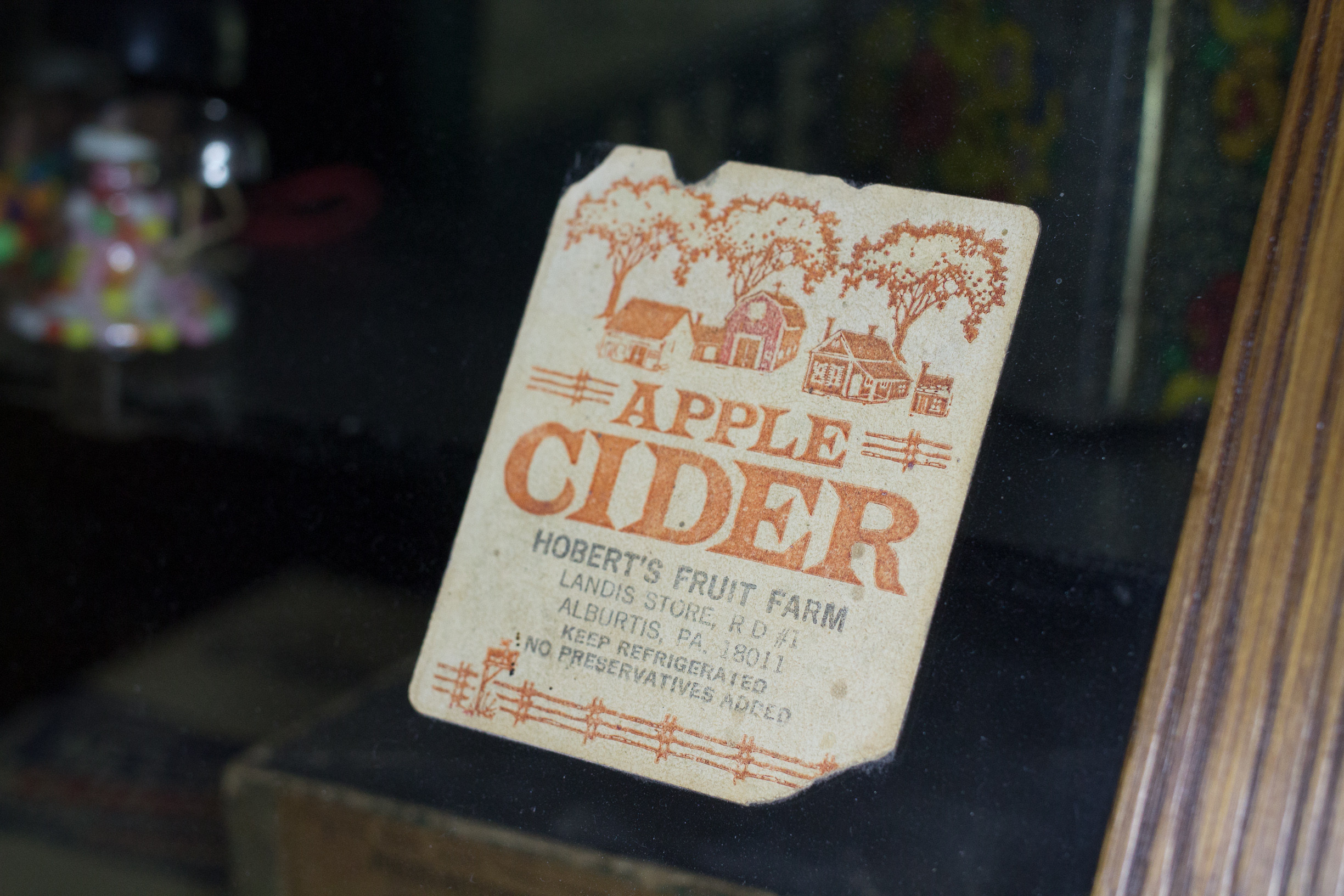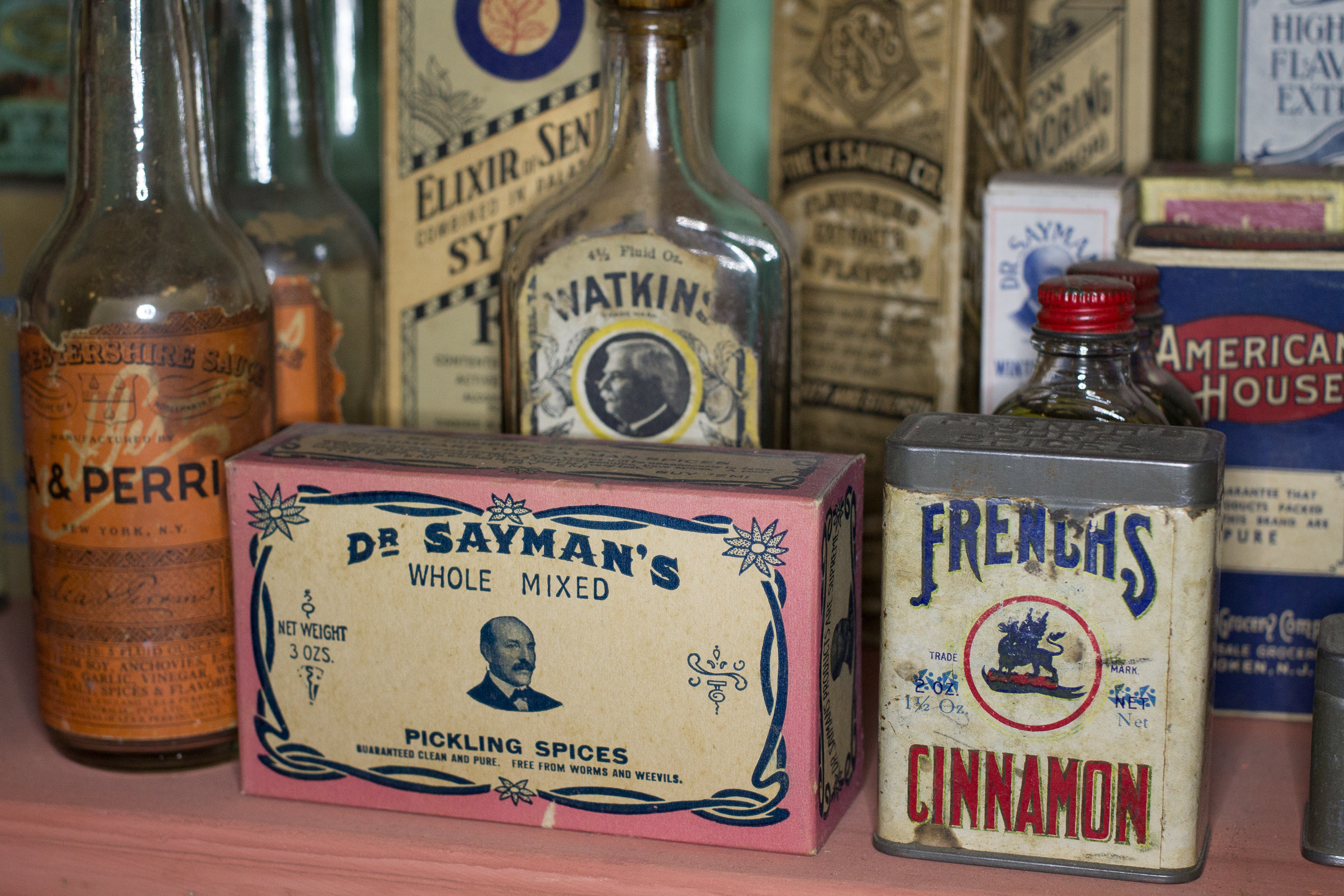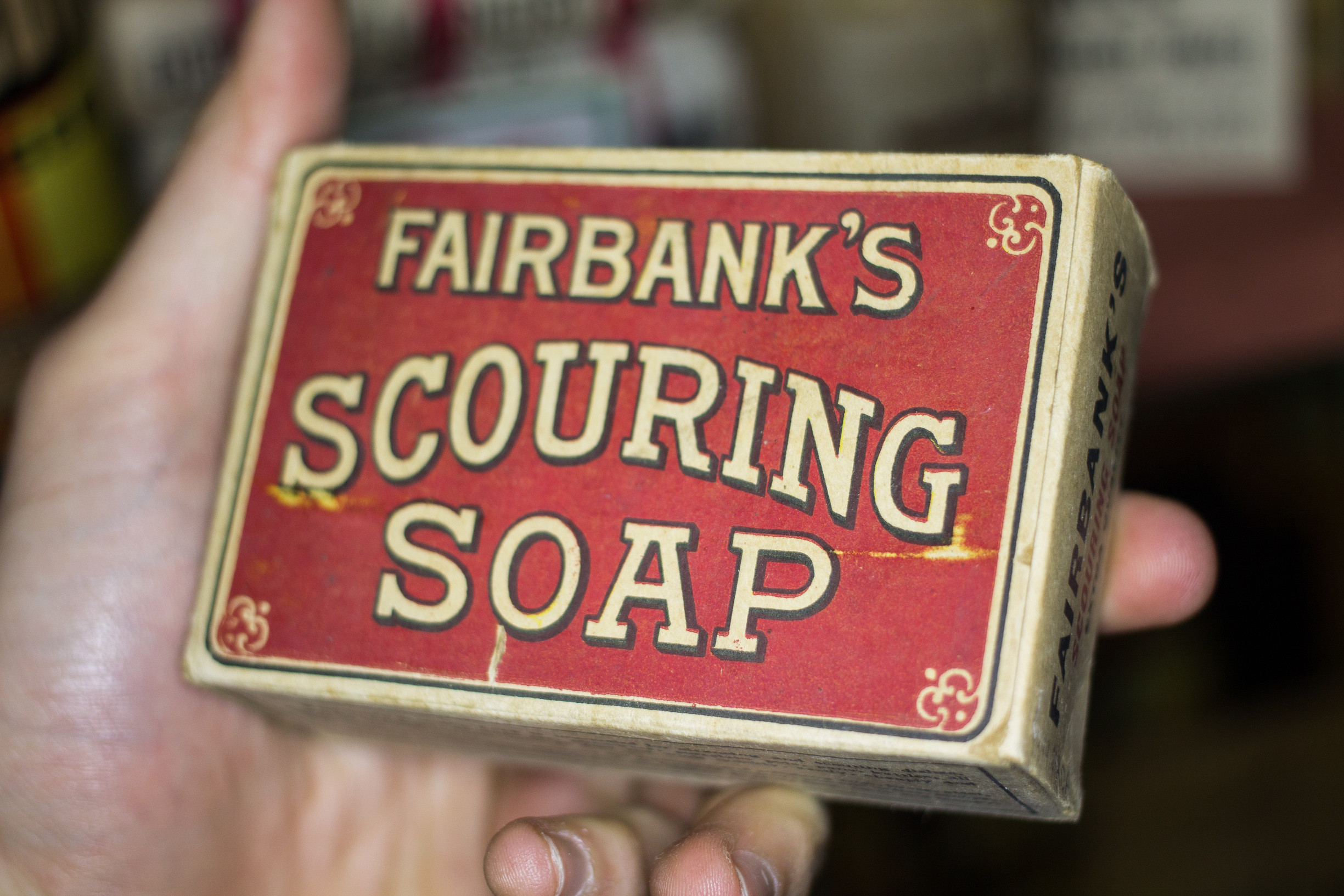
Check some retro findings that prove timeless typographic excellence
These findings will probably seem interesting to film-directors ala Wes Anderson style, designers for some back-to-roots typographic treatmets, mothers will maybe get sensitive and collectors you should run fast because these are so rare. But beware: only touching - not tasting (probably).